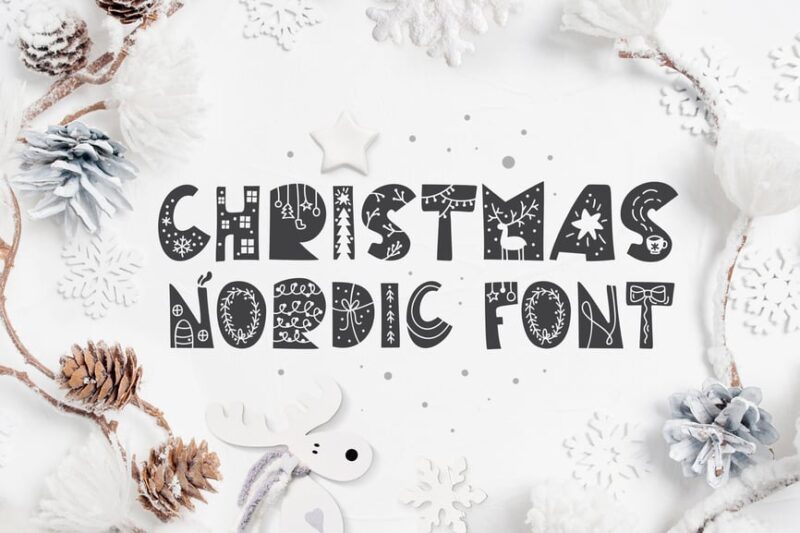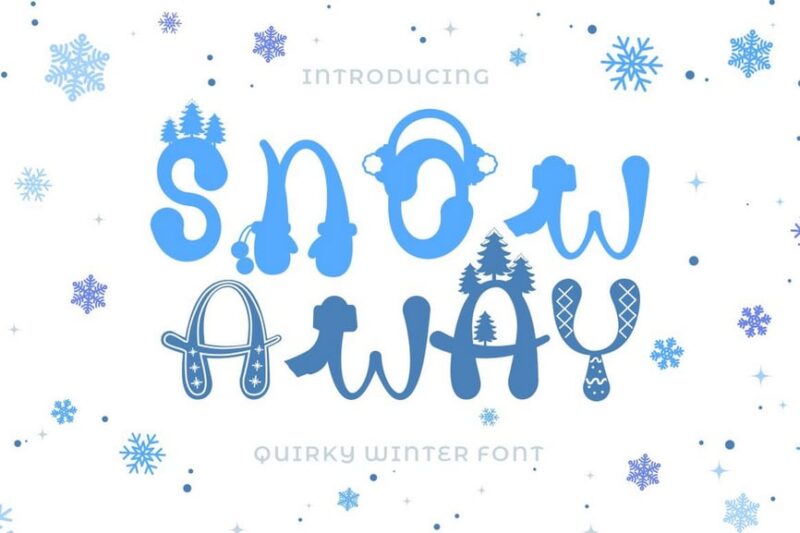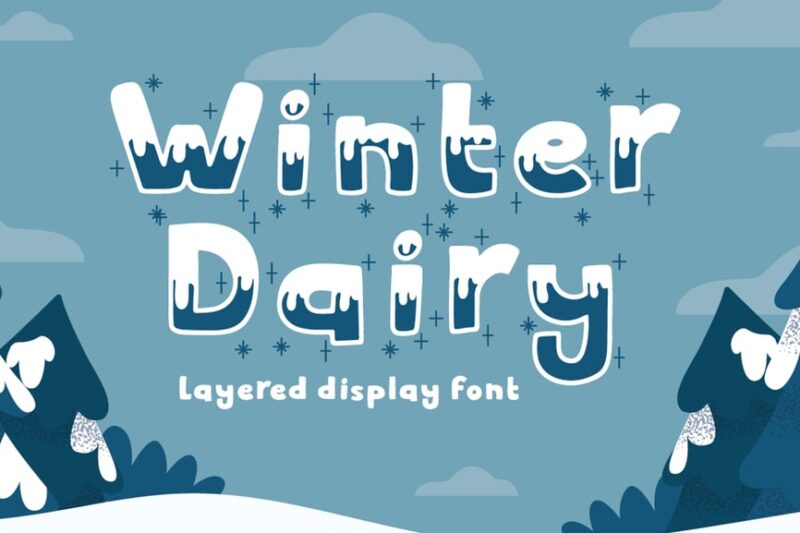
There’s something magical about the first snowfall of the season. That crisp air, the way light reflects off fresh powder, the cozy feeling of wrapping your hands around a hot mug of cocoa. Winter isn’t just a season—it’s a mood, a vibe, an entire aesthetic that deserves the perfect typography to match.
And let me tell you, finding the right winter font can transform your holiday cards, seasonal branding, or festive social media posts from “meh” to magnificent. Whether you’re designing Christmas party invitations, creating winter wedding materials, or refreshing your brand for the cold-weather season, the typography you choose sets the entire tone.
In this comprehensive guide, we’re diving deep into the frosty world of winter fonts. We’ll explore everything from elegant script fonts that look like they were written in fresh snow to bold display fonts that capture the drama of a winter storm. So grab that cocoa, get cozy, and let’s explore the most beautiful winter fonts for 2026!
The Best Winter Fonts of 2026
Not all winter fonts are created equal. Some capture the delicate beauty of a snowflake, while others embody the bold drama of an icy blizzard. I’ve curated a list of the most stunning winter fonts available right now—each one perfect for bringing that cold-weather charm to your designs.
Snowy – Winter Floral Color Font
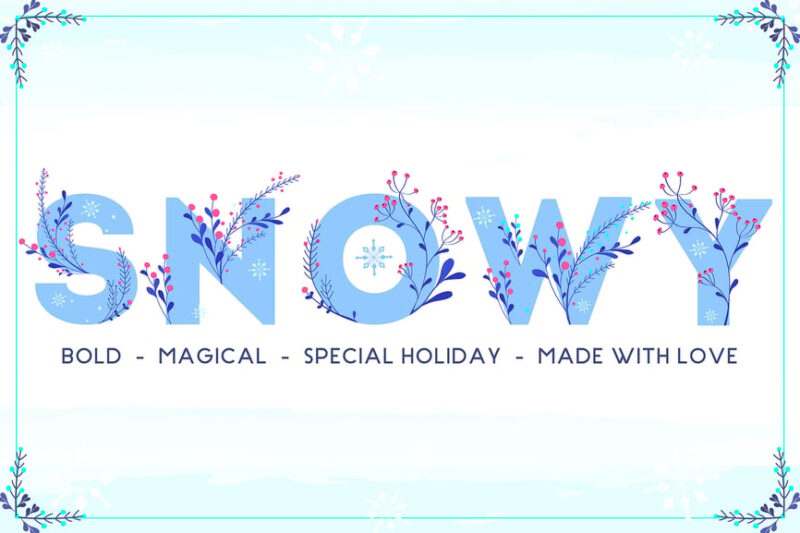
Snowy is a versatile winter font that combines sans-serif, serif, and decorative elements. Perfect for festive designs, this font features charming floral accents and snow-inspired symbols, making it an ideal choice for winter-themed projects.
Winter Kingdom
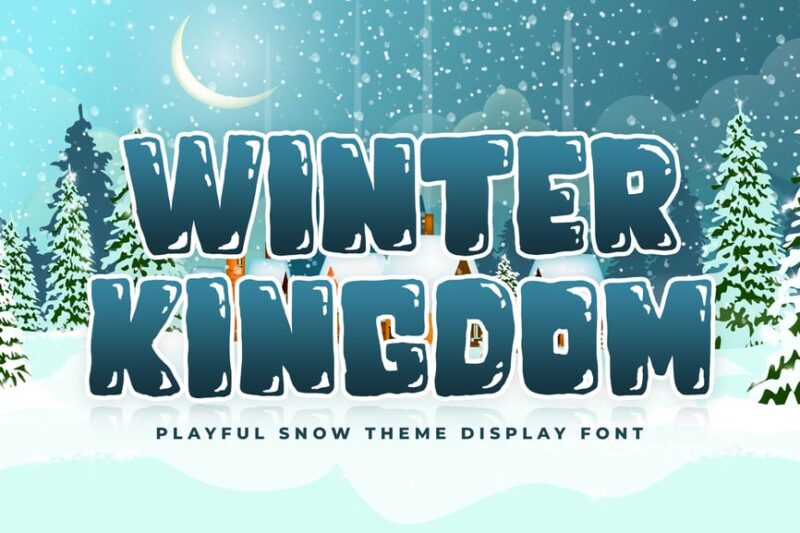
Winter Kingdom is a majestic sans-serif font with decorative elements that evoke icy landscapes. This winter font is perfect for creating a regal and festive atmosphere in your designs, ideal for holiday-themed projects or winter wonderland concepts.
Winter Rosetta
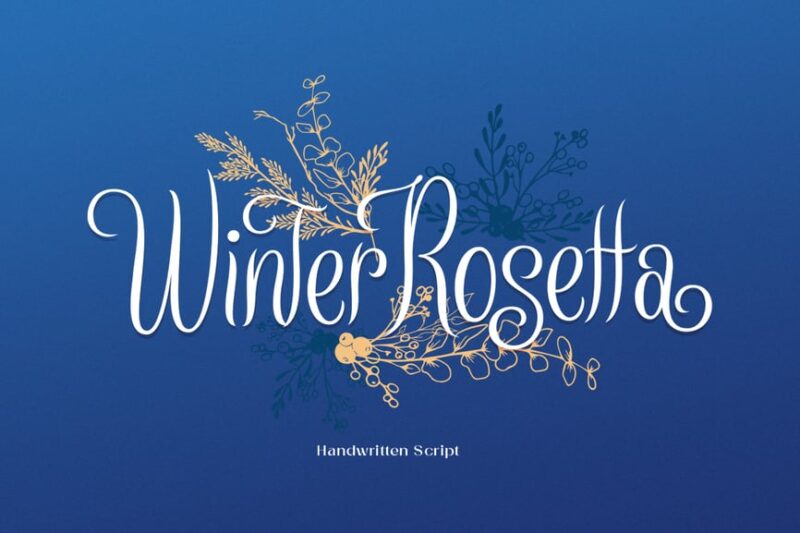
Winter Rosetta is a enchanting script font that brings a touch of fairytale magic to your winter designs. This handwritten-style typeface is perfect for creating whimsical, frost-inspired typography for seasonal projects and holiday greetings.
Ice Age Color Fonts
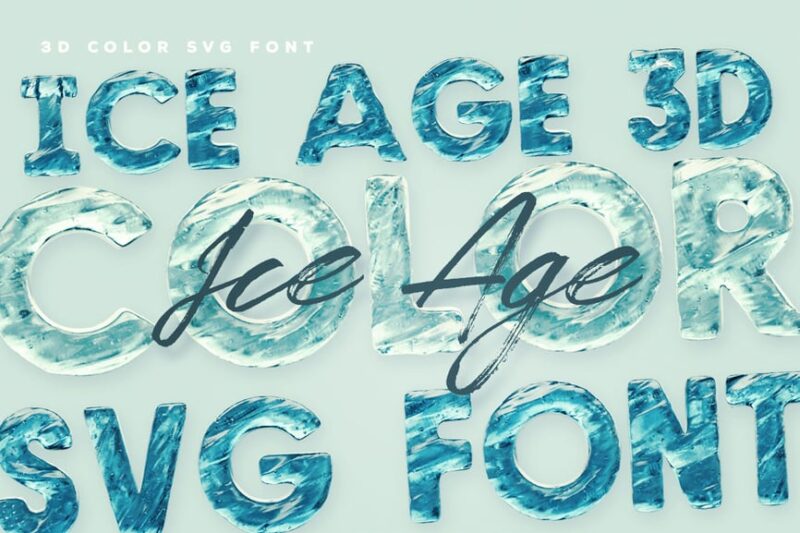
Ice Age Color Fonts offer a cool and frosty aesthetic for winter-themed designs. These decorative fonts feature icy textures and frozen effects, making them perfect for creating eye-catching typography in cold-weather themed projects and advertisements.
Winter City – Kids font
Winter City is a playful decorative font designed with children in mind. This winter font features ice-inspired letterforms and comes with SVG support, making it ideal for creating fun and frosty designs for kids’ winter activities and events.
Wintersing – Script Font
Wintersing is an elegant script font that brings a touch of winter charm to your designs. This handwritten-style typeface is perfect for craft projects and seasonal branding, offering a delicate and graceful approach to winter-themed typography.
Glacier – Modern Serif Font
Glacier is a sophisticated modern serif font that embodies the crisp beauty of winter. This elegant typeface, with its snow-inspired details, is perfect for creating upscale holiday designs and winter-themed branding materials.
WINTER HOLIDAY – KIDS FONT
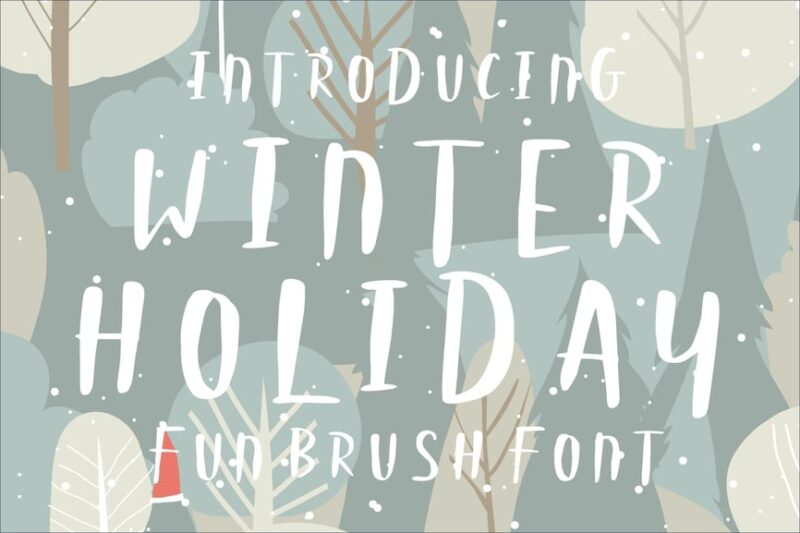
WINTER HOLIDAY is a playful script font designed for children’s winter-themed projects. This fun and whimsical typeface is perfect for creating engaging designs for kids’ holiday events, winter camps, and seasonal educational materials.
Lucky Winter – Christmas Font
Lucky Winter is a festive serif font that captures the spirit of Christmas. This winter font features jolly and decorative elements, making it ideal for creating merry holiday greetings, seasonal packaging, and winter-themed marketing materials.
Hello Winter
Hello Winter is a charming decorative font that welcomes the cold season with open arms. This display typeface features playful, winter-inspired letterforms, perfect for creating eye-catching headlines and titles for seasonal promotions and events.
Winter Wishes
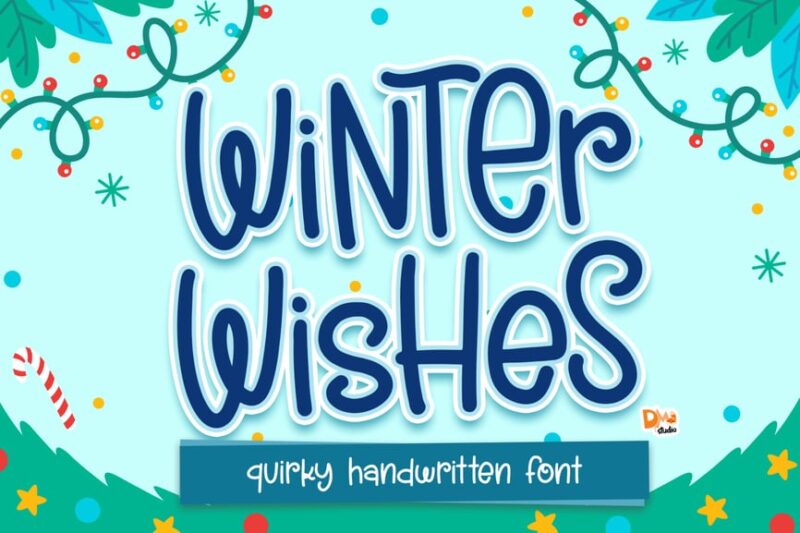
Winter Wishes is a delightful script font that embodies the magic of the holiday season. This handwritten-style typeface is ideal for creating heartfelt winter greetings, festive invitations, and seasonal branding materials with a personal touch.
Coldville – Winter Display Font
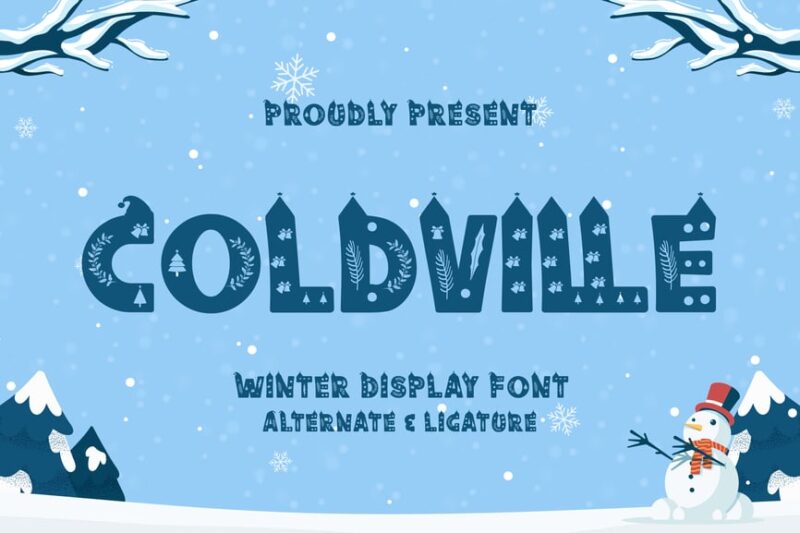
Coldville is a bold and frosty display font that captures the essence of winter. This decorative typeface features icy textures and snow-inspired details, making it perfect for creating striking headlines and logos for winter-themed projects and events.
So embrace the chill, experiment with different styles, and don’t be afraid to get creative. Winter fonts open up a world of design possibilities that can make your cold-weather projects truly shine. After all, there’s no such thing as bad weather—only bad typography choices!
Now if you’ll excuse me, I have some hot cocoa waiting and about fifty more winter fonts to explore. Because when it comes to beautiful typography, I’m always ready for more snow days.